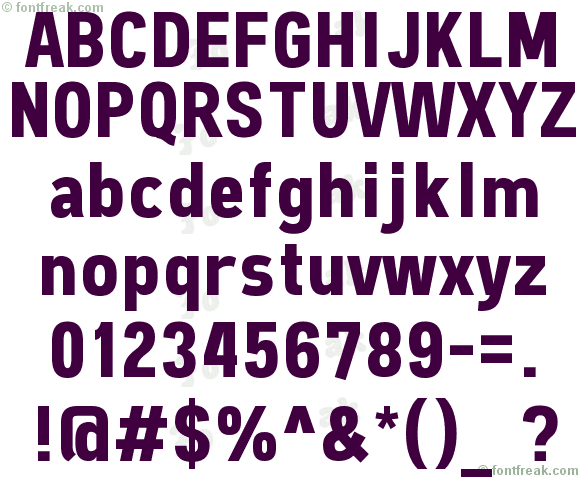
Freeroad Bold
About Freeroad Bold
Freeroad Bold, designed by Jayvee Enaguas, is a striking display font that effortlessly captures attention with its bold, sans-serif style. Released between 2009 and 2012, this font has gained popularity for its robust and modern appearance. The visual characteristics of Freeroad Bold include a heavy stroke weight that provides a commanding presence, while its clean lines and minimal contrast enhance readability. The spacing is well-balanced, ensuring that each letter stands out without feeling crowded, making it an ideal choice for impactful design.
This versatile font is perfect for a variety of use cases. It shines in movie posters, where its boldness can convey excitement and drama. Additionally, Freeroad Bold is an excellent choice for restaurant menus, where it can draw attention to dish names and specials, enhancing the overall dining experience. Graphic designers may find it suitable for creating eye-catching promotional materials, while small business owners can utilize the font in branding elements such as logos and signage. Content creators can also leverage its strong visual appeal in social media graphics, ensuring their posts resonate with audiences.
The target audience for Freeroad Bold includes graphic designers looking for a distinctive typeface, small business owners seeking to enhance their branding, and content creators aiming for visually striking materials. This font stands out due to its unique combination of strength and clarity, making it an essential addition to any designer's toolkit. With the Freeroad Bold font free download, you can easily incorporate this impactful typeface into your projects, allowing you to elevate your design work with a professional touch. Whether for digital or print applications, Freeroad Bold is sure to leave a lasting impression.